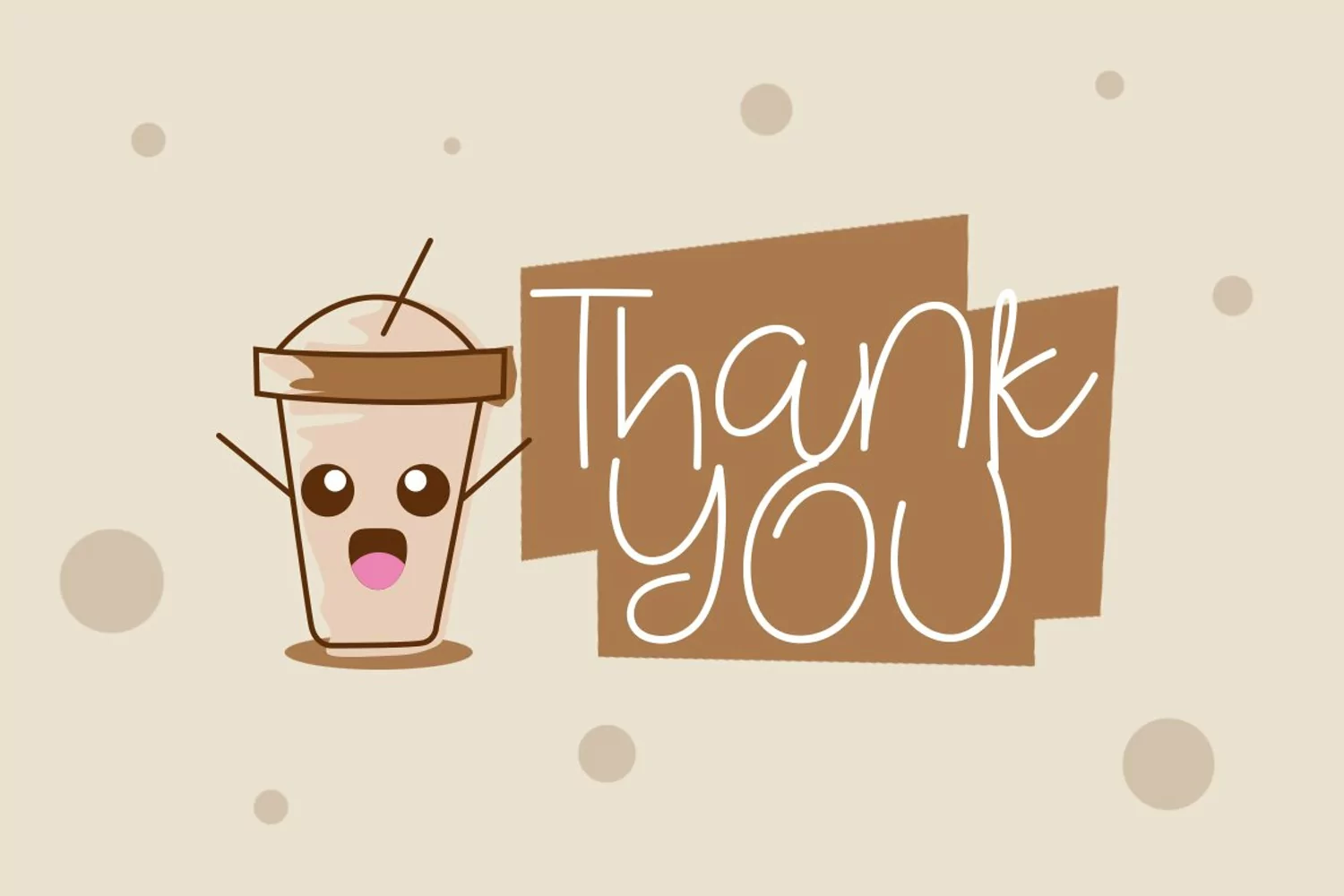
Introducing, Coffee and Cookies font a monoline script typeface with cheerful theme for your fun project. Coffee and Cookies font suitable for logo, branding, greeting card, poster and any design that you create.